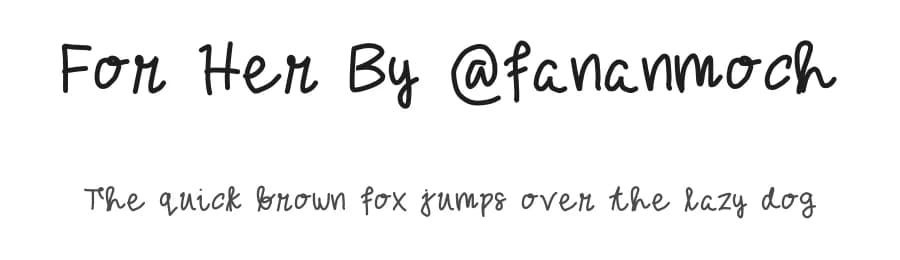
About For Her By @fananmoch Font
It's been long since the last time i made font. This is the new style of my font, and i guess this style i would name it handwritten by myself, ahaha, i don't know... :v
For Her By @fananmoch Font is a script font that shines as a display or heading face. Pair it with a clean sans-serif or serif font for body text β the contrast creates a clear hierarchy while the two styles stay balanced and easy to read.
For Her By @fananmoch Font